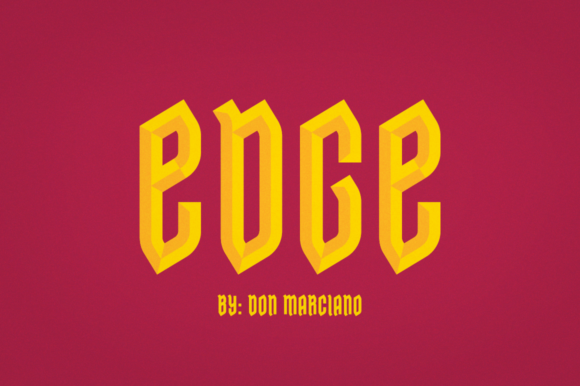
Enter the realm of Edge Font, a captivating blackletter typeface that drips with vintage charm and historical intrigue. Designed by the ingenious mind of DonMarciano, this font is not just a collection of letters; it's a journey through time, a gateway to a bygone era.
With Edge Font, you hold the key to unlocking the secrets of the past, to conjuring images of ancient manuscripts, royal decrees, and tales of chivalry. Its bold strokes and intricate details evoke a sense of authenticity and timeless allure, making it the perfect choice for projects that demand a touch of heritage and distinction.
Step into a world where your words take on a life of their own, where each letter becomes a work of art. Edge Font's unique charm will elevate your designs to new heights, whether you're crafting logos that exude authority, posters that capture attention, or invitations that hint at a grand occasion.
Unleash your creativity and let Edge Font guide you through a labyrinth of possibilities. Its versatility knows no bounds, adapting seamlessly to a myriad of projects. From branding and packaging to apparel and social media graphics, Edge Font will transform your ideas into captivating visual masterpieces.
Join the ranks of discerning designers and typographers who have discovered the magic of Edge Font. Let its timeless beauty elevate your work, captivating your audience with its historical elegance. Embrace the power of the past and let Edge Font be your beacon into a world of boundless creativity.